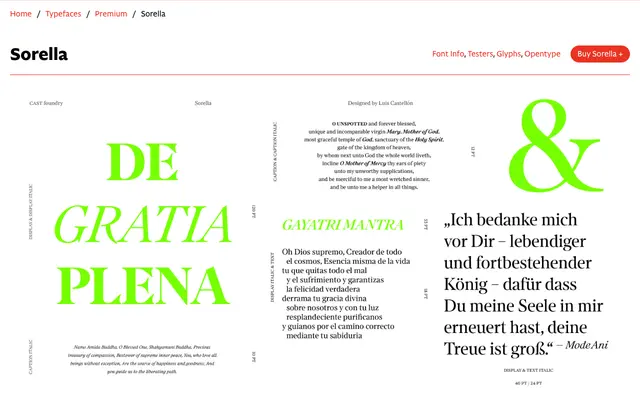
Sorella
CAST · Luis Castellón · 2023
Sorella specimen from CAST
A seriffed family in five weights across three optical sizes, drawn from engraved 18th-century calligraphy by Angela Baroni with Fleischmann-like capitals and a 20-degree italic.
Designed by Luis Castellón and sourced from Baroni's copper-plate engraving in a 1740 Venetian book of hours, the design predates Fleischmann's own adoption of the forms he is credited with. Soft, slightly compact proportions sit alongside sharp serifs, bulbous terminals and deliberately unconnected strokes in letters such as E, F, e and g, lending the text an open and airy quality. Thirty styles span Caption, Text and Display optical sizes with matching italics, small caps and four numeral styles, and the family is also available as a variable font.
Drawn from 18th-century engraved calligraphy with Fleischmann-like serif forms, sharp serifs and high thick/thin contrast in the Display size. The open counters, unconnected strokes and bulbous terminals place it firmly in the transitional tradition with a distinctly calligraphic character.